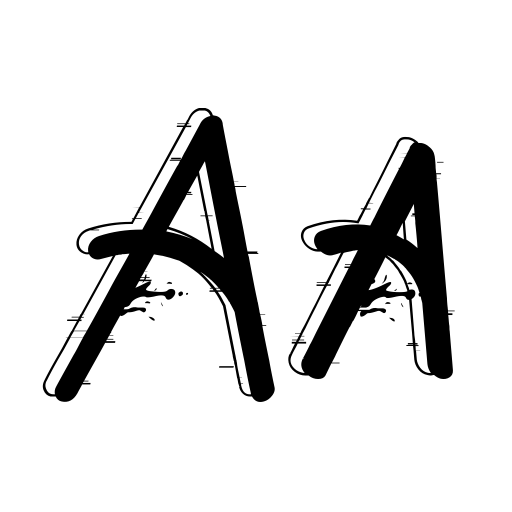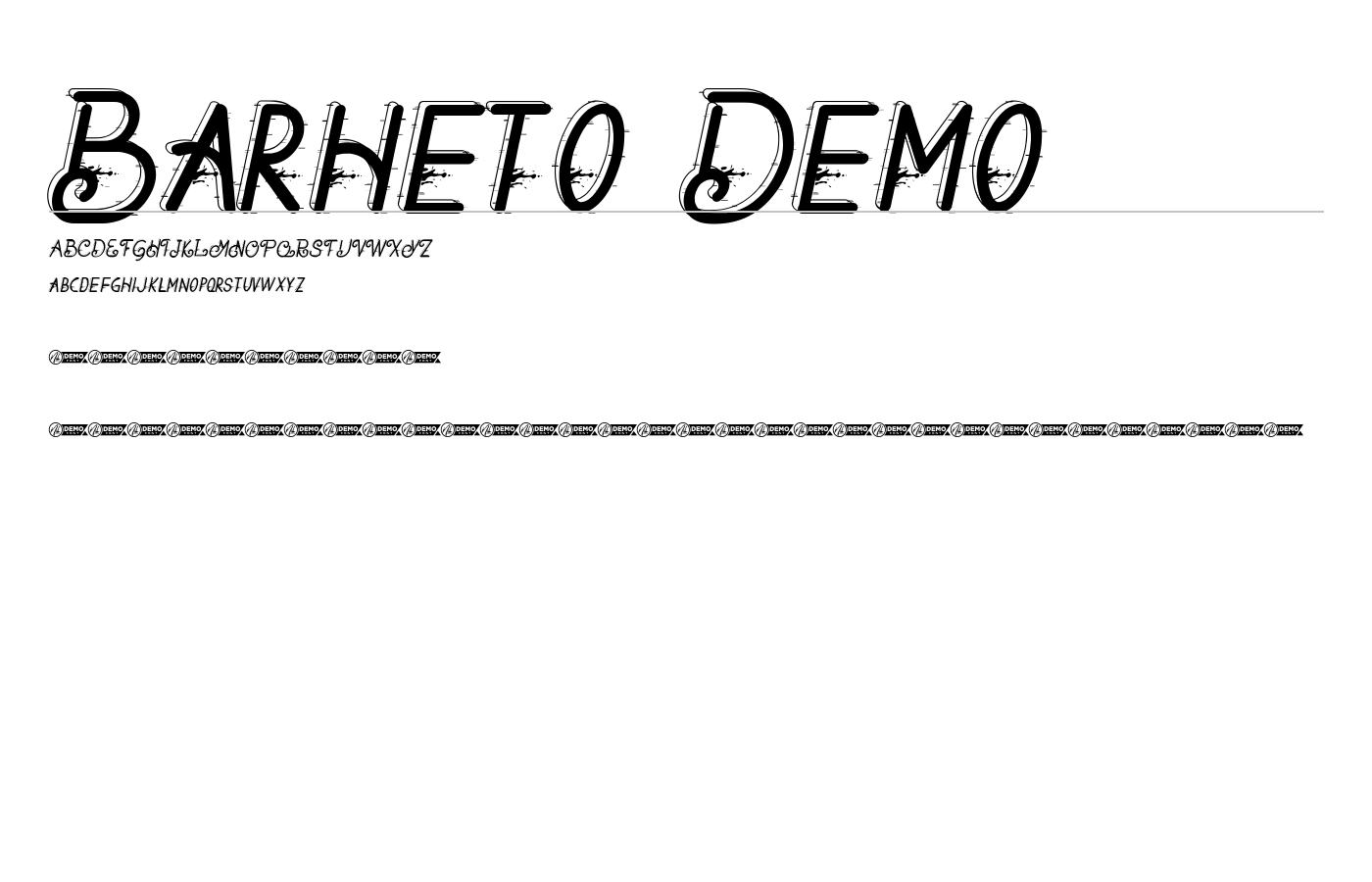
Barheto Demo is a playful, decorative script font with lively, hand-drawn characteristics and bold, rounded strokes that give it a quirky yet approachable feel. Its unique letterforms combine strong vertical lines with swirling, artistic accents, making it ideal for creative branding, eye-catching headlines, and projects seeking a fun and informal personality. This font works best where a distinctive, energetic style is desired to stand out with charm and originality.
Barheto Demo Font
About Barheto Demo Font